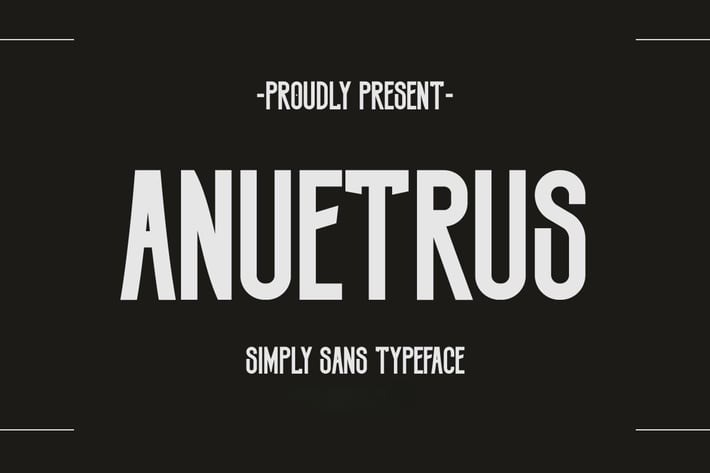
Anuetrus – Sleek Modern Display Sans Serif Font
Anuetrus is a sleek modern display sans serif font designed for high-end visual appeal and clarity. With its minimalist structure, smooth curves, and professional tone, it’s ideal for tech brands, corporate identities, web interfaces, and clean editorial layouts.
This typeface brings modern sophistication and versatility to your design projects.
Key Features:
- Sleek modern sans serif with minimalist feel
- Ideal for UI design, branding, and editorial use
- Balanced proportions and high readability
- Perfect for tech, corporate, and clean aesthetics
- Uppercase letters, numerals, and punctuation
- Professionally kerned and easy to customize
Anuetrus helps elevate your design with style, clarity, and modern precision.
Whether you're a graphic designer or a craft enthusiast, Anuetrus is your go-to choice for crafting exceptional visuals.